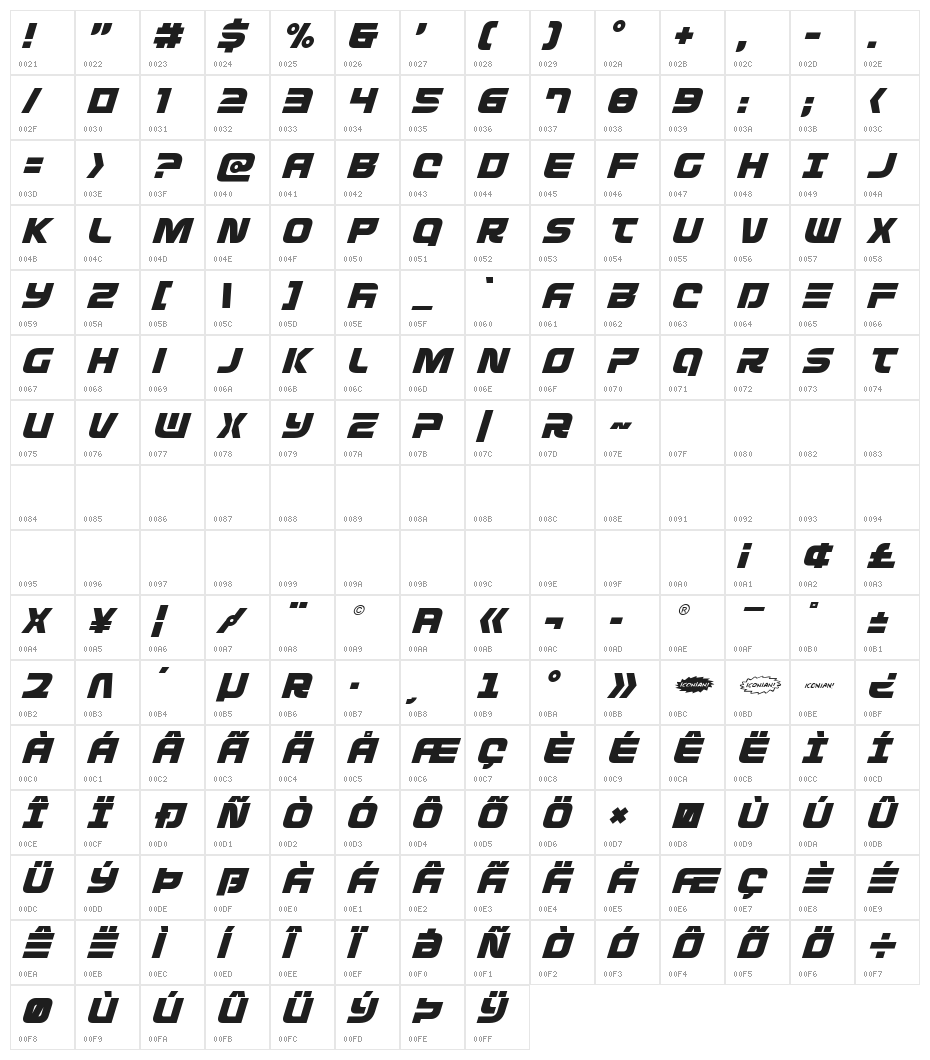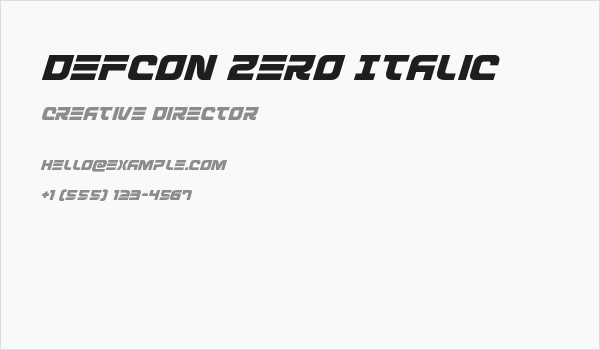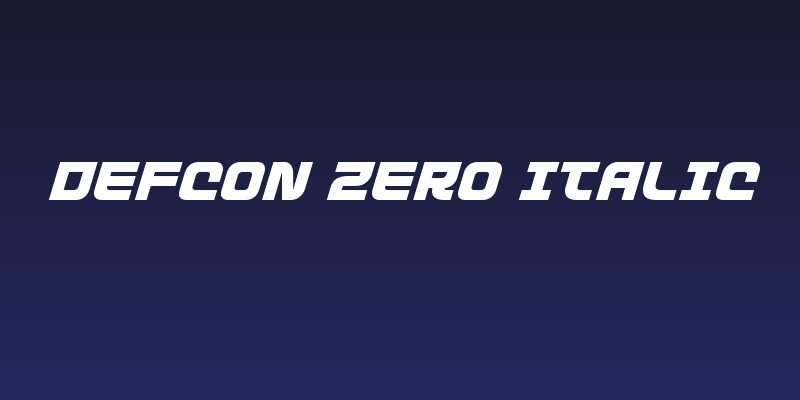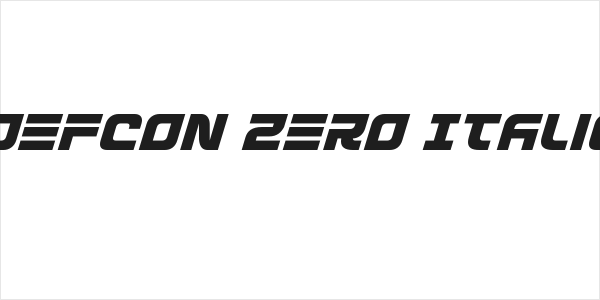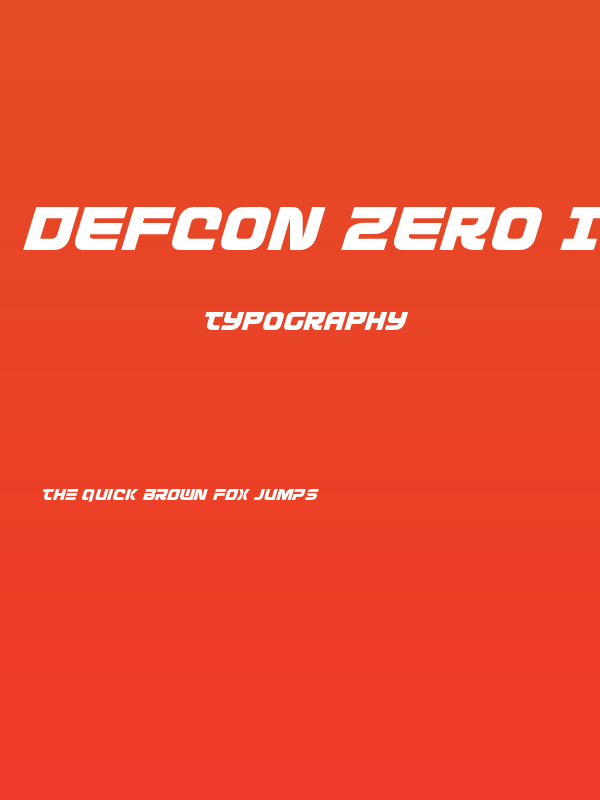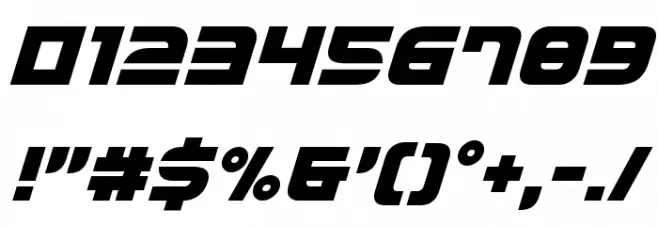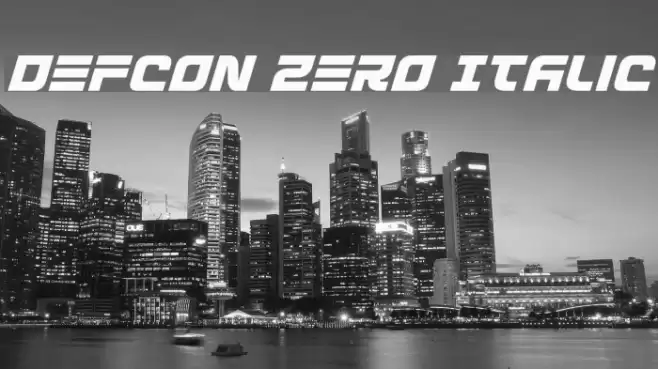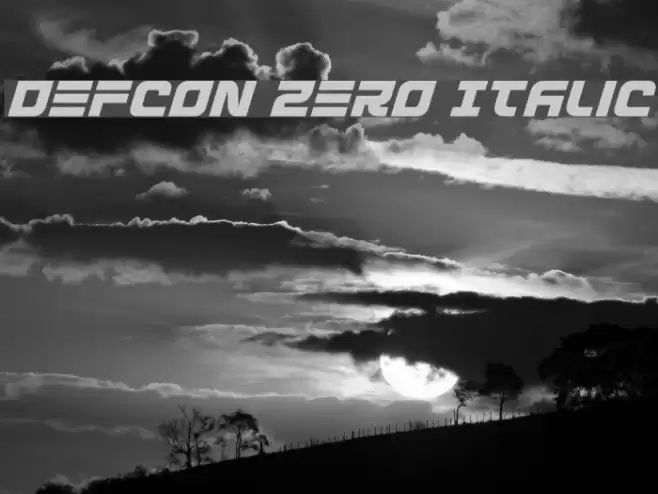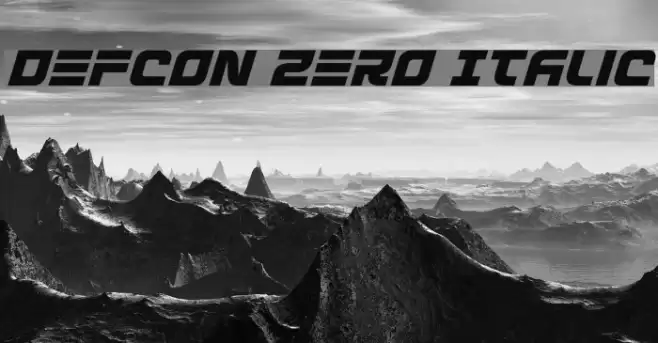
Defcon Zero Italic Font
Defcon Zero Italic Description
This font features a bold, italicized style with a futuristic and dynamic appearance. The characters are designed with sharp angles and a forward-leaning stance, giving a sense of motion and speed. The uppercase letters are uniform in height, while the lowercase letters maintain a consistent style that complements the uppercase. The numerals are bold and easily distinguishable, matching the overall aesthetic. Special characters are included, maintaining the same bold and angular design. The font's strong presence makes it suitable for impactful designs.
| Proposed Projects | Ideal for sci-fi themed projects, video game titles, technology branding, and sports team logos. |